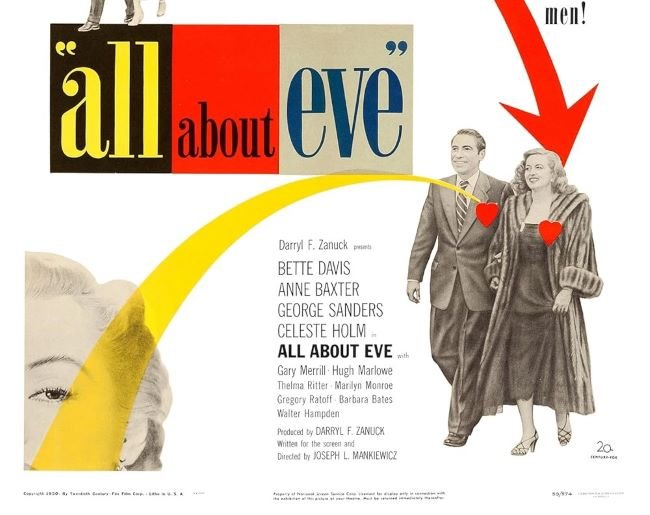
All About Eve Font
All About Eve font — most similar to Magari Semi Bold, with a free alternative available — inhabits the golden-age Hollywood serif tradition with the particular elegance of a film that considers itself, without false modesty, the finest drama about ambition and theatrical rivalry ever made.
Joseph L. Mankiewicz’s 1950 Twentieth Century Fox film — still the most nominated film in Academy Awards history with fourteen nominations — needed title typography that could carry the weight of its own considerable prestige, and the refined, graceful serif letterforms deliver exactly that: Hollywood glamour that knows it is important and is not embarrassed about it, which is also the posture of its central characters at their most compelling. The freely available All About Eve Font Alternative approaches this classic, elegant serif authority.